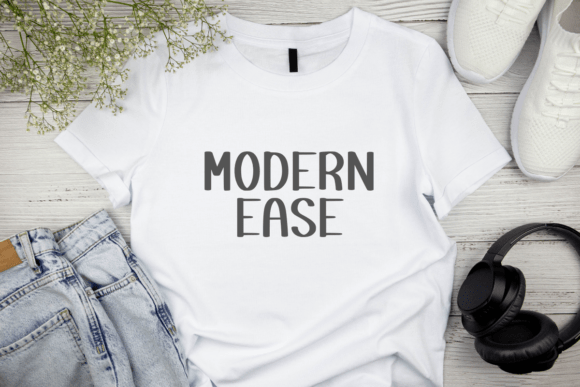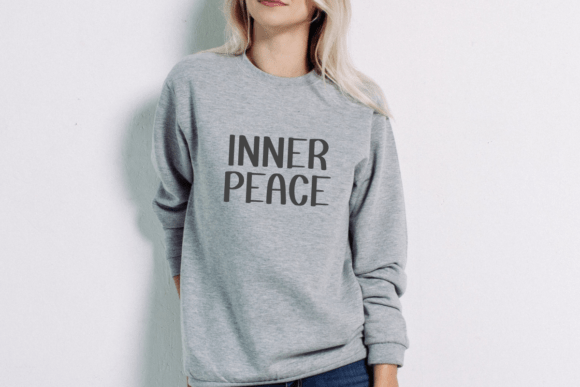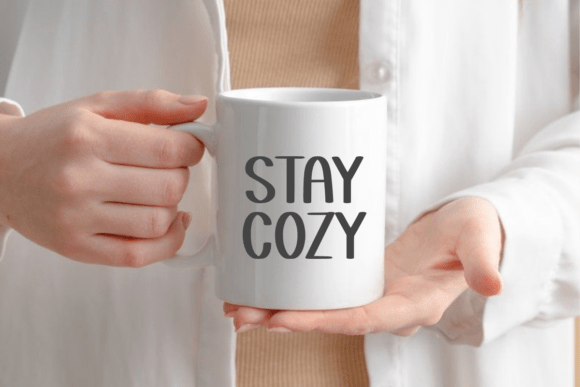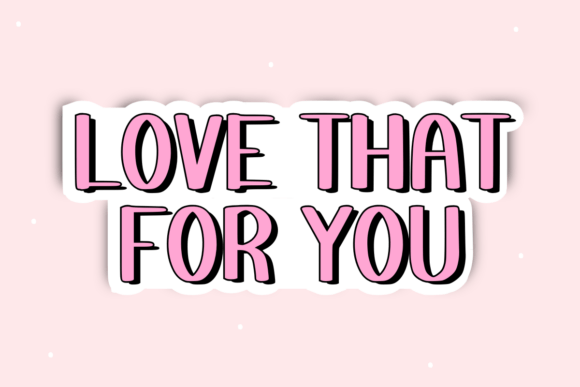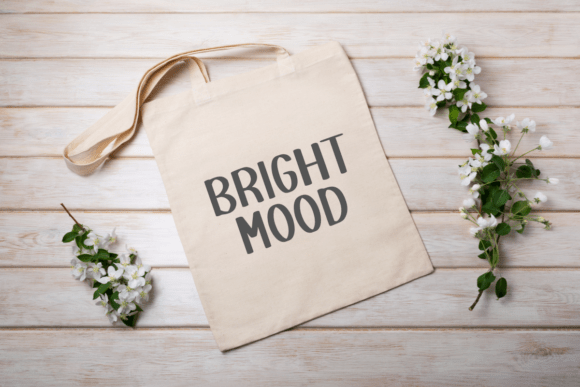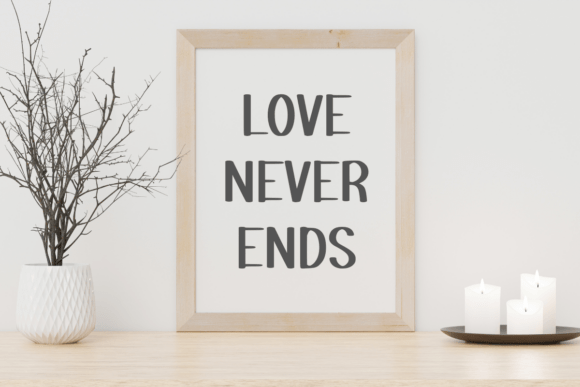
The Sweet Spot: Discovering the Charm of Cookies Grinch Font
I’ll never forget the moment I stumbled upon the perfect font for my niece’s DIY birthday party invitations. I had a vision of something warm, playful, and effortlessly cute, but my go-to fonts just weren’t cutting it. That’s when I met Cookies Grinch Font – a delightful sans-serif handwriting font that has since become a staple in my design toolkit.
Cookies Grinch Font has won my heart with its:
- ✨ Soft, friendly, and natural look that’s perfect for craft projects and kids’ materials
- ✅ Smooth curves and simple strokes that make it easy to cut using Cricut and Silhouette
- 💕 Warm, handcrafted feeling that’s ideal for creating a personal touch in designs
However, I do have to mention a few minor quirks:
- 🤔 Some letters may appear a tad too casual for very formal projects (but that’s also part of its charm!)
- ⚠️ It might not be the best fit for very long blocks of text, as it’s optimized for shorter phrases and titles
Cookies Grinch Font was designed with the intention of capturing the warmth and playfulness of handwritten text. The creator aimed to craft a font that would evoke a sense of nostalgia and friendliness, perfect for crafty projects and kids’ materials. By combining simple strokes and smooth curves, the designer achieved a font that’s both approachable and visually appealing.
| Font Name | Cookies Grinch Font |
| What type of projects is Cookies Grinch Font best suited for? | Cookies Grinch Font is perfect for craft projects, planners, stickers, kids’ worksheets, classroom printables, DIY designs, quotes, greeting cards, kids’ labels, coloring pages, worksheets, bullet journals, scrapbooks, and playful graphic projects. |
| Is Cookies Grinch Font compatible with my cutting machine? | Yes, Cookies Grinch Font is optimized for use with cutting machines like Cricut and Silhouette, making it perfect for crafters and DIY enthusiasts. |